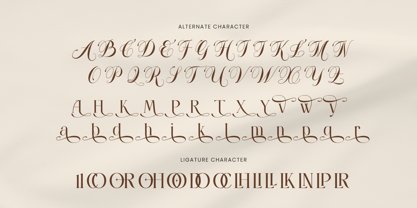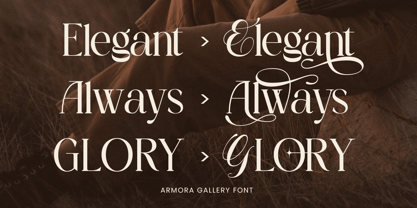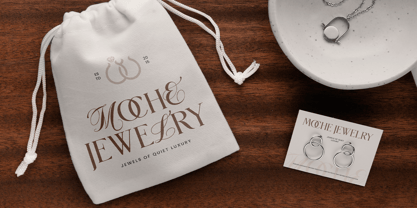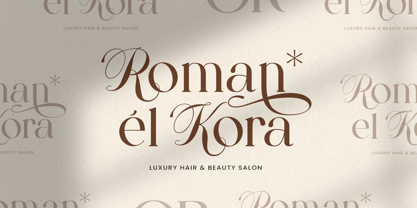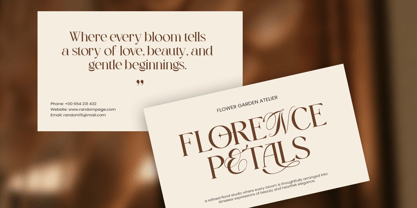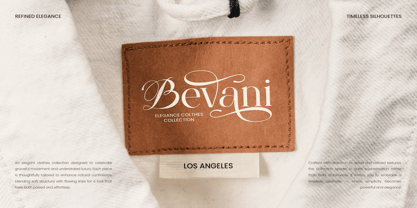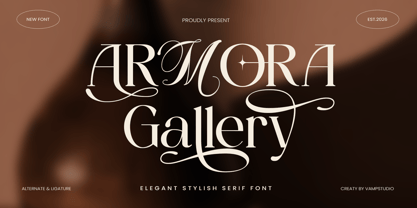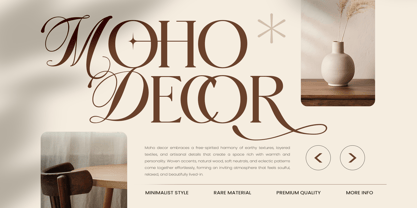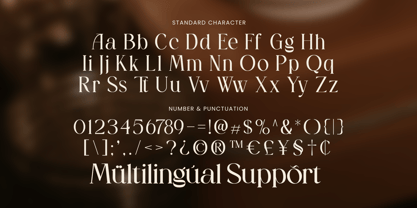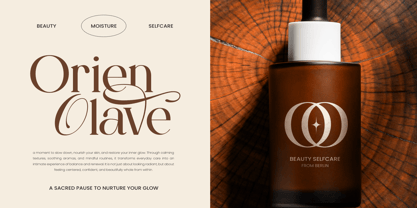
Armora Gallery
The Armora Gallery Font Family was designed by Irfan syah and published by Vampstudio. Armora Gallery contains 1 styles. More about this family
Armora Gallery is a sophisticated serif typeface crafted for luxury branding and elegant visual storytelling. Featuring graceful curves, high-contrast strokes, and stylish ligatures, this font delivers a premium aesthetic perfect for fashion labels, cosmetic brands, editorial layouts, wedding invitations, and upscale packaging.
Designed to balance modern elegance with classic serif beauty, Armora Gallery works beautifully for logos, headlines, social media graphics, product branding, and magazine typography.
Key Features
• Uppercase & lowercase characters
• Elegant ligatures & alternates
• Multilingual support
• Numbers & punctuation
• Luxury serif style
• Perfect for branding & editorials